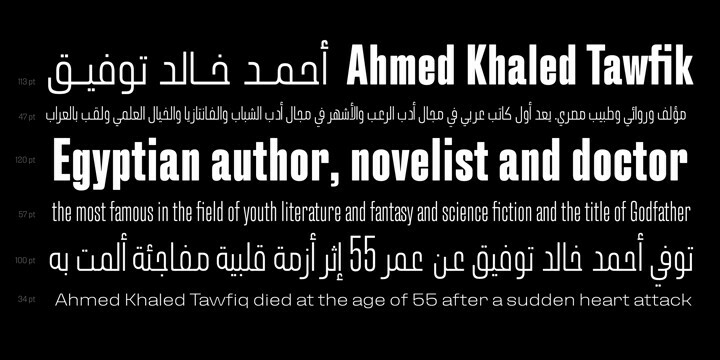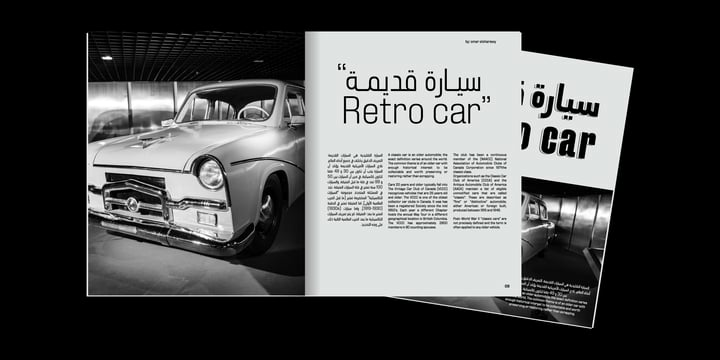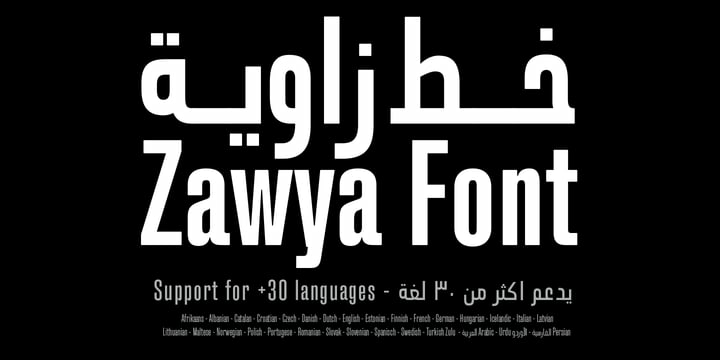
Zawya Pro Arabic Font Family
Zawya Pro Arabic Font FamilyThe family has 24 weights, ranging from Thin to Black in Normal, Condensed and Wide styles. It is ideally suited for advertising and packaging, editorial and publishing, logo, branding and creative industries, poster, and billboards, small text, wayfinding, and signage as well as web and screen design. Zawya Pro provides advanced support with features such as case-sensitive forms, fractions, super- and subscript characters, and stylistic alternates. It comes with a complete range of letters for Arabic and English with Arabic and Latin digits. As well as Latin-based languages, the typeface family also partly supports the Arabic, Urdu and Persian and more than 30 writing systems such as ( Afrikaans – Albanian – Catalan – Croatian – Czech – Danish – Dutch – English – Estonian – Finnish – French – German – Hungarian – Icelandic – Italian – Latvian Lithuanian – Maltese – Norwegian – Polish – Portuguese – Romanian – Slovak – Slovenian – Spanish – Swedish – Turkish Zulu – العربية Arabic – Urdu الفارسية – الأوردو Persian). In includes OpenType features for Arabic and English: Stylistic set 01 and 02 Numerator & denominator Fractions Ordinals Superscript standard ligatures discretionary ligatures Case Sensitive